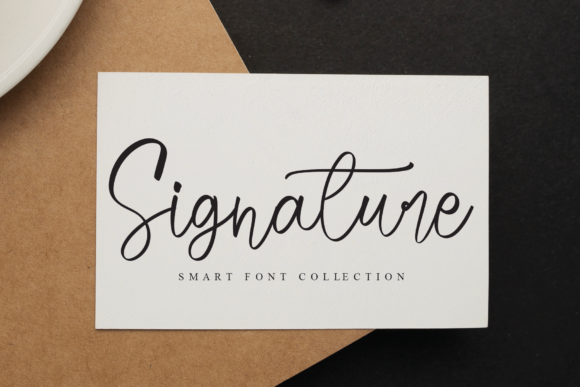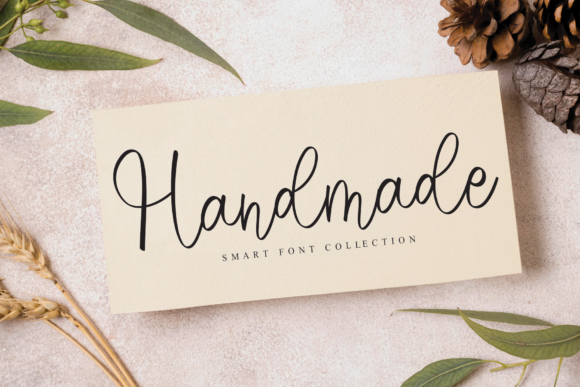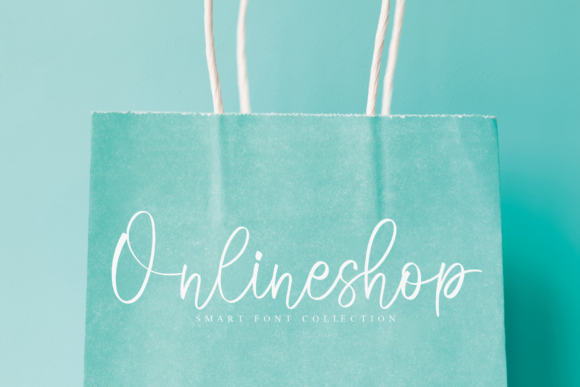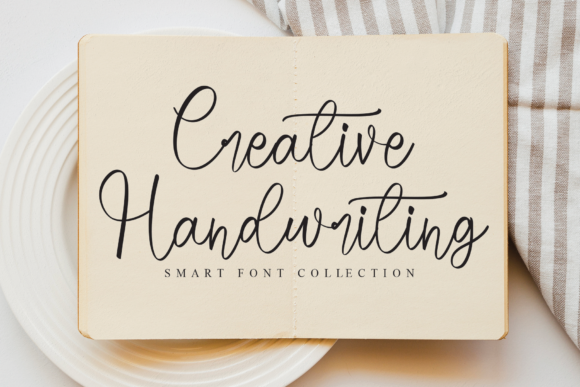
The Sunfalower Font
About The Sunfalower Font
The Sunfalower is a thin and flowing script font that exudes elegance and class. This font was particularly crafted for those who need a beautiful and refreshing look to their designs.